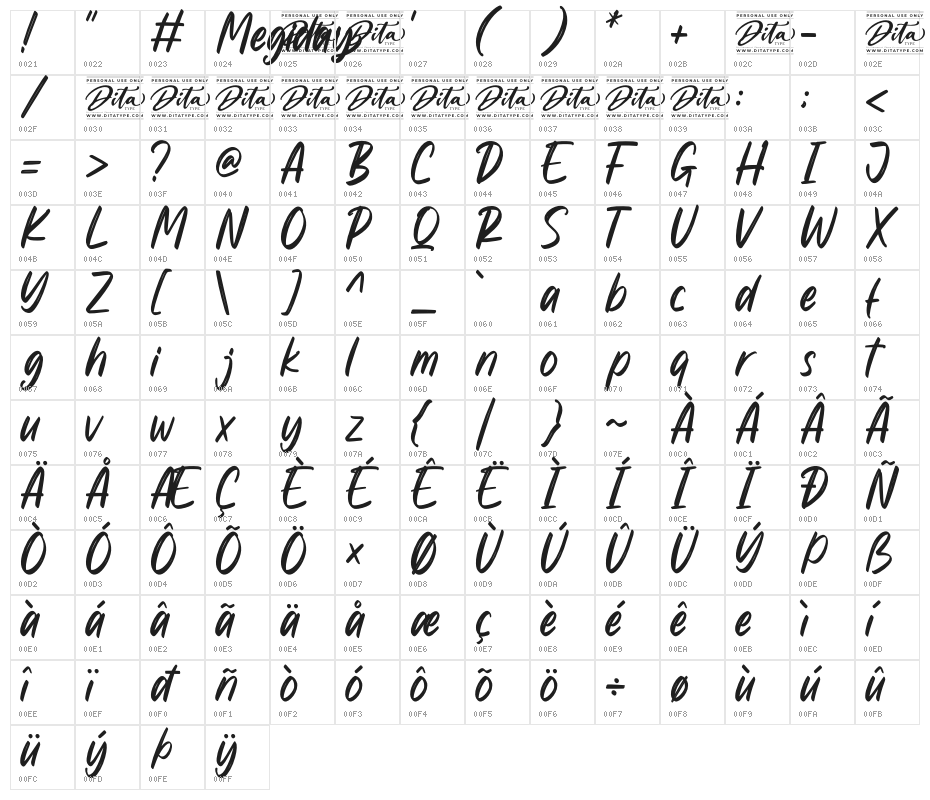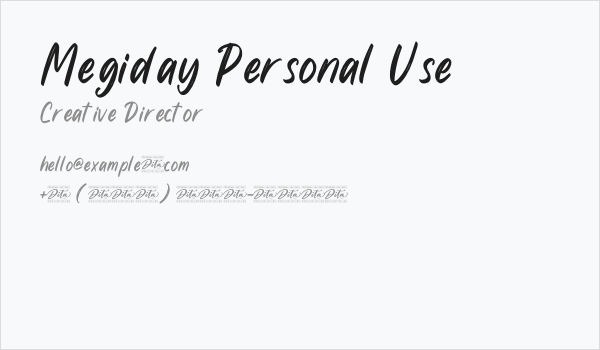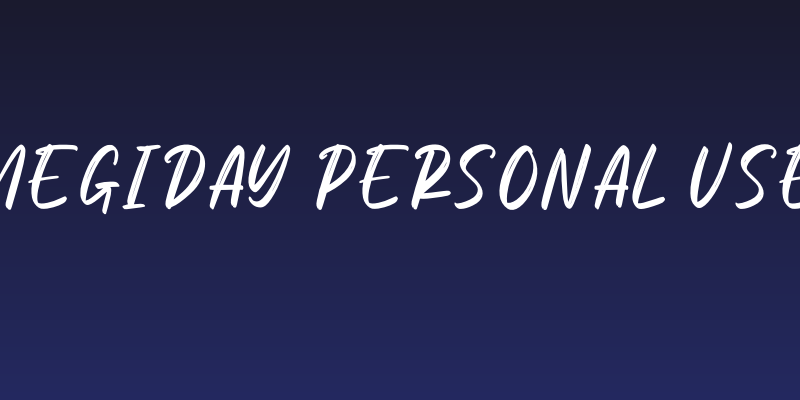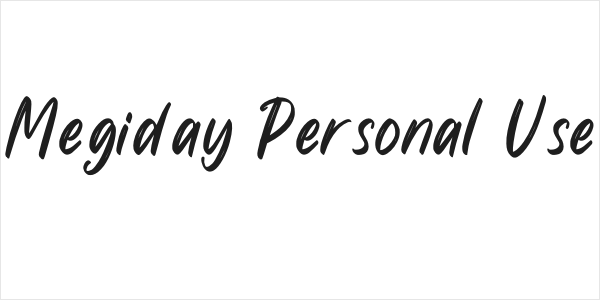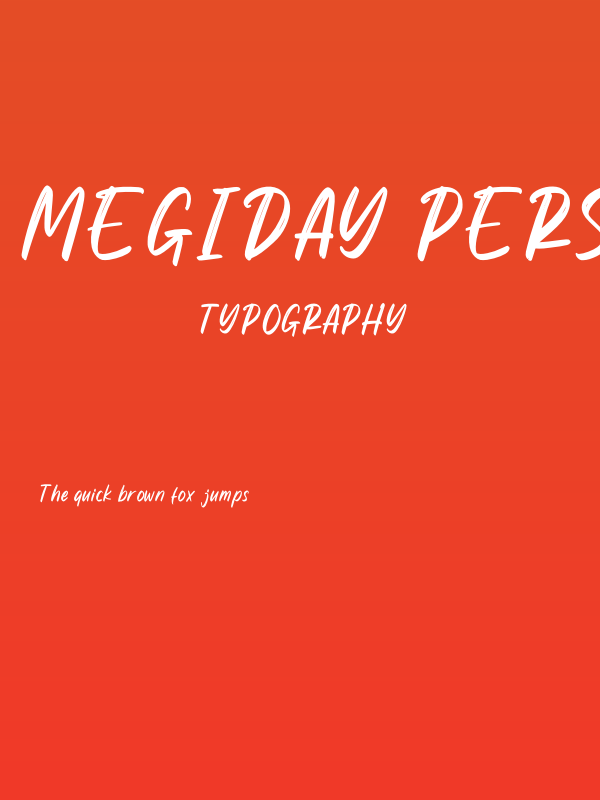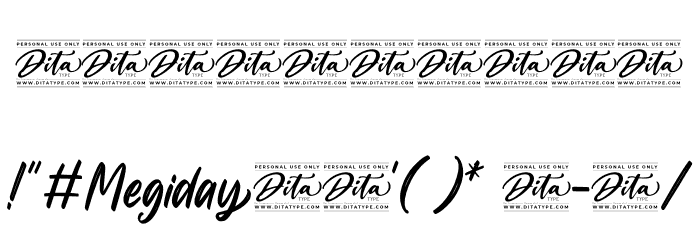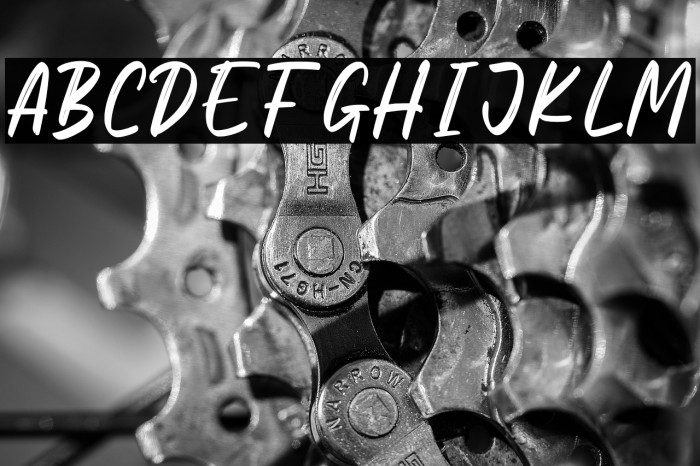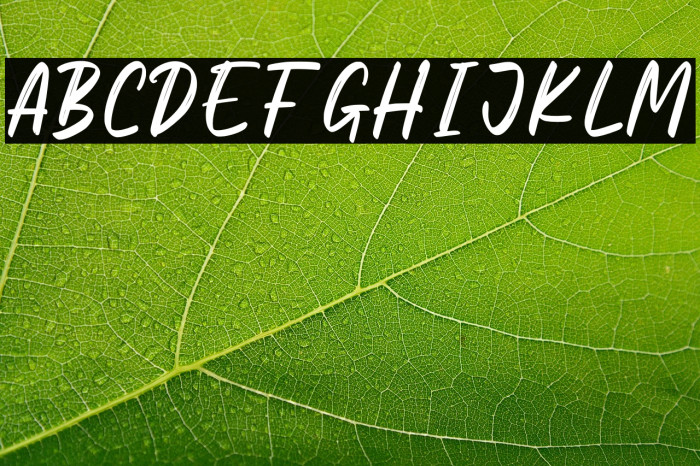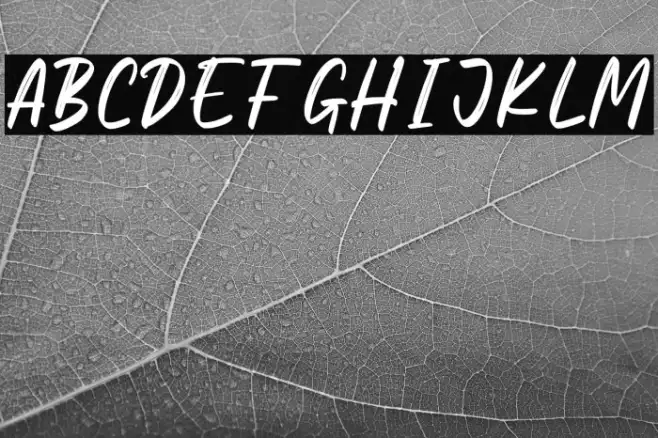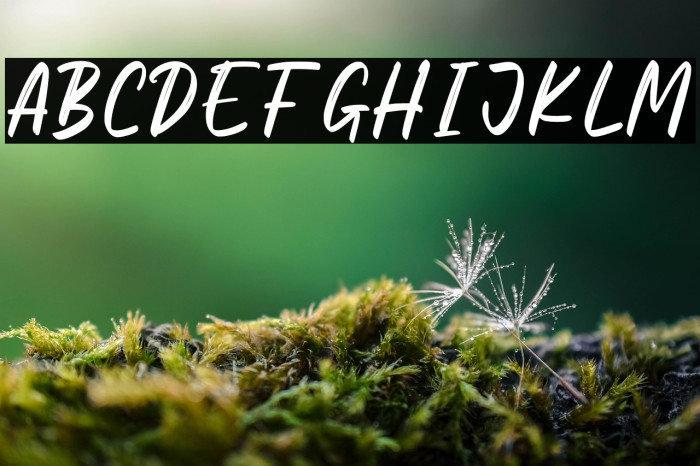
Megiday Personal Use Font
Megiday Personal Use Description
This font features a dynamic and expressive handwritten style, characterized by its fluid and slightly slanted letterforms. The uppercase letters are bold and confident, while the lowercase letters maintain a consistent flow, adding a personal touch to the text. The strokes vary in thickness, providing a natural and organic feel. The font includes a full set of uppercase and lowercase letters, numerals, and a selection of special characters, making it versatile for various design needs. Its energetic and casual appearance makes it suitable for projects that require a personal and approachable tone.